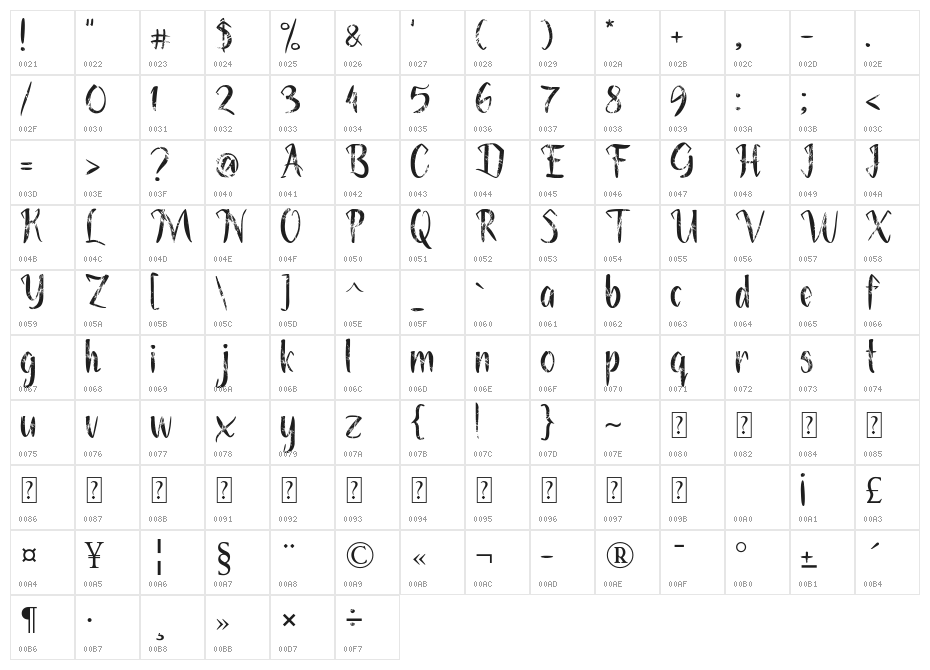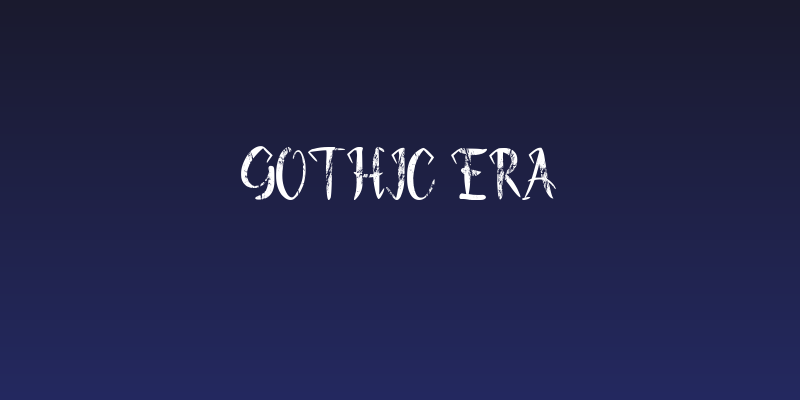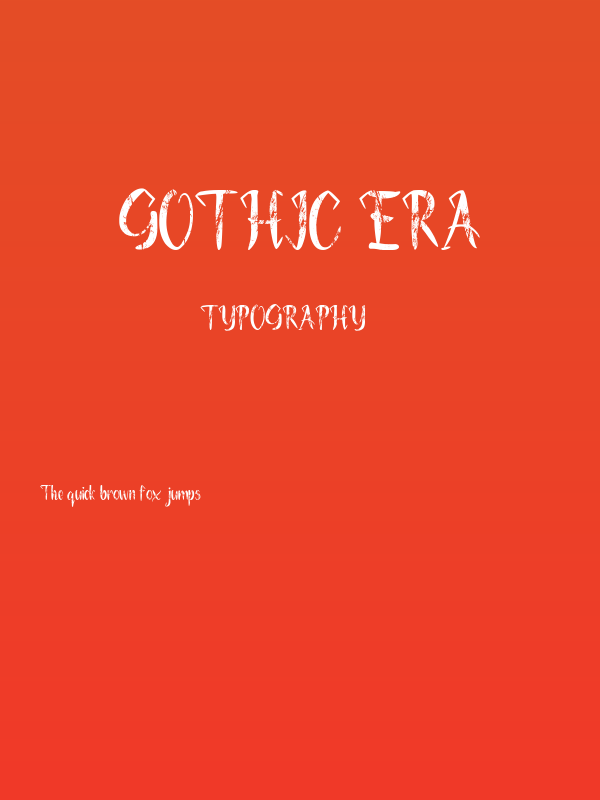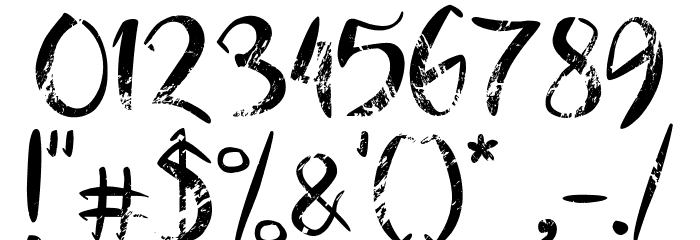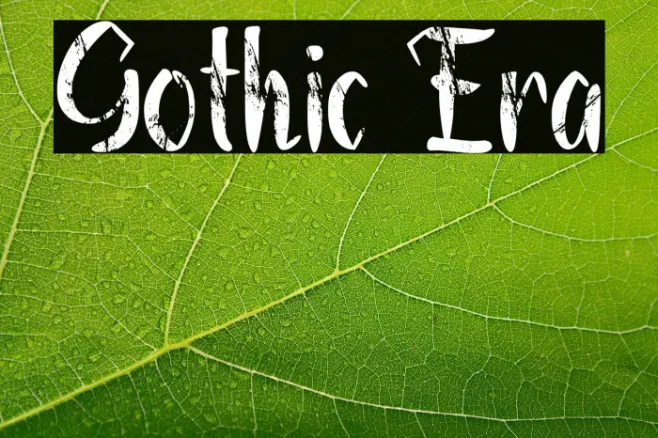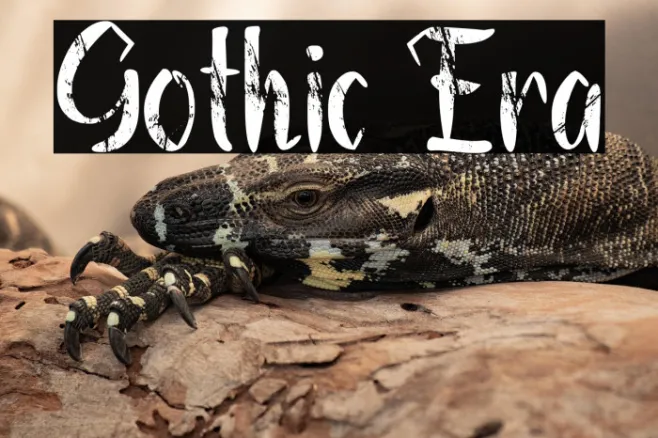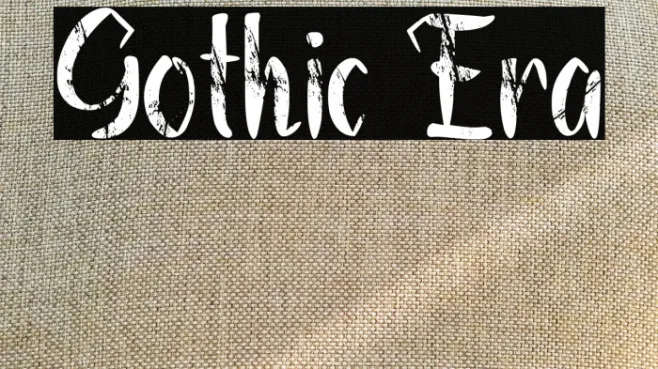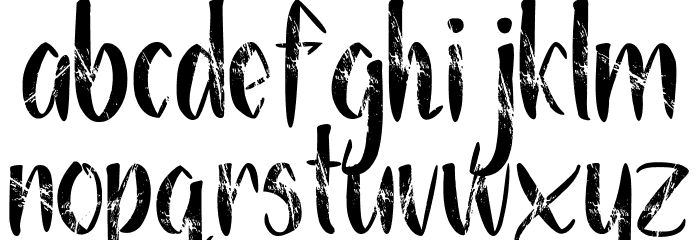
Gothic Era Font
Gothic Era Description
This font features a distressed, grunge style with a gothic influence, characterized by its rough, textured appearance. The uppercase and lowercase letters have a hand-drawn quality, with irregular edges and a slightly chaotic feel. The numerals and special characters maintain this distressed look, adding to the overall aesthetic. The strokes are varied in thickness, creating a dynamic and bold impression. This font is ideal for projects that require a dramatic and edgy look, such as posters, album covers, or branding for alternative or rock-themed events.
| Overall Style | Gothic, Grunge, Decorative |
| Proposed Projects | Ideal for posters, album covers, edgy branding, and rock-themed events. |